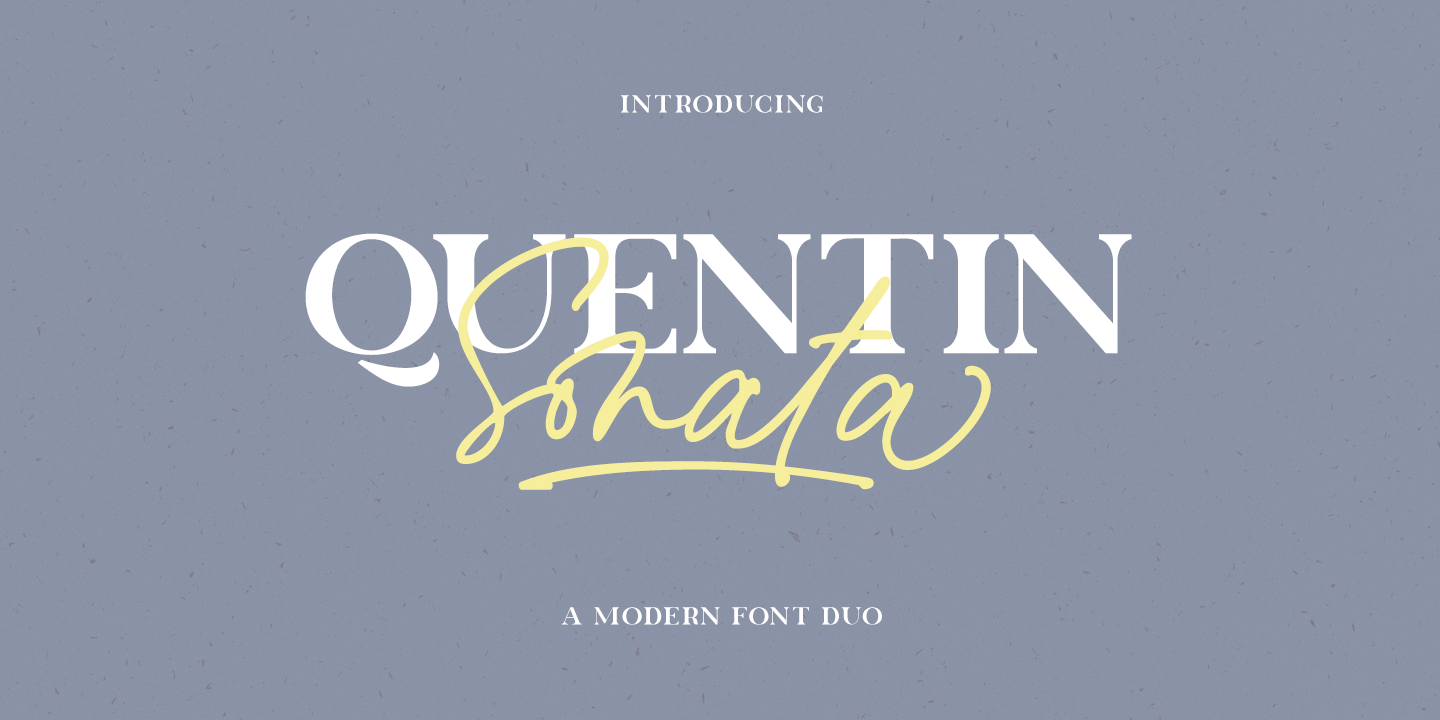
The Quentin Sonata Font is perfect for classical music concert programs, symphony orchestra branding, opera house signage, music conservatory materials, elegant wedding invitations, fine arts gallery exhibits, luxury lifestyle magazines, premium wine labels, and sophisticated cultural event promotions.
What makes the Quentin Sonata Font so exciting is its exquisite musical elegance that instantly captures the refined beauty and emotional depth of classical composition. This sophisticated typeface embodies the timeless artistry and cultural sophistication of the classical music world, creating an immediate impression of refinement and artistic excellence. The font's harmonious character communicates the precision and emotional resonance that classical music institutions need to attract discerning audiences who appreciate the highest levels of artistic achievement and cultural sophistication.
The Quentin Sonata Font family includes Regular weight with complete uppercase and lowercase alphabets, comprehensive numerical sets, essential punctuation marks, and musical symbols that maintain the classical aesthetic throughout your fine arts and cultural design projects.
Classical music organizations and cultural institutions consistently choose Quentin Sonata Font Free Download for projects that require authentic artistic appeal and sophisticated cultural communication. This exceptional typeface excels in environments where establishing connection to classical traditions and artistic excellence is crucial for attracting culturally sophisticated audiences and maintaining institutional prestige. The font's refined character helps communicate the quality and cultural significance that classical music patrons expect from prestigious performing arts organizations.
The distinctive qualities of Quentin Sonata Font reflect the noble traditions of classical music where artistic mastery and cultural refinement have elevated human expression for centuries. Each character demonstrates the meticulous craftsmanship and aesthetic sensitivity that characterizes great musical composition and performance. The font's proportions and spacing create perfect harmony between classical elegance and contemporary readability that modern cultural institutions require for effective audience engagement.
Contemporary classical music enterprises appreciate how Quentin Sonata Font communicates artistic excellence and cultural sophistication. Whether designing programs for symphony performances, creating marketing materials for opera productions, or developing branding for music education institutions, this font delivers the authentic character that distinguishes world-class musical organizations from amateur ensembles. The typeface works exceptionally well for institutions emphasizing artistic tradition, musical excellence, and cultural enrichment.
The versatility of Quentin Sonata Font extends across multiple classical music applications and cultural marketing initiatives. Recording companies utilize its elegant character for classical album covers and liner notes. Music festivals choose it to communicate the prestige and artistic quality of their programming. Cultural foundations rely on its sophisticated appearance to promote classical music education and audience development programs.
Digital classical music platforms benefit from Quentin Sonata Font's optimized performance across various cultural applications and artistic communication channels. The font maintains its classical character whether displayed on concert hall websites, mobile classical music apps, or digital program notes. This technical excellence ensures consistent brand presentation across all classical music communication platforms and cultural engagement scenarios.
The emotional impact of Quentin Sonata Font resonates with audiences who appreciate the transformative power of classical music and cultural arts. The typeface serves as a visual invitation to experience the beauty and emotional depth of classical performance that helps cultural institutions build lasting relationships with arts patrons and music lovers. This connection to artistic beauty and cultural heritage makes it invaluable for establishing prestigious classical music brand identities.
Classical music marketing specialists and cultural design professionals recognize Quentin Sonata Font as an essential tool for authentic artistic branding. The font captures the essence of musical excellence while making classical tradition accessible to contemporary cultural organizations who want to communicate their commitment to artistic achievement and cultural enrichment in today's diverse entertainment marketplace.